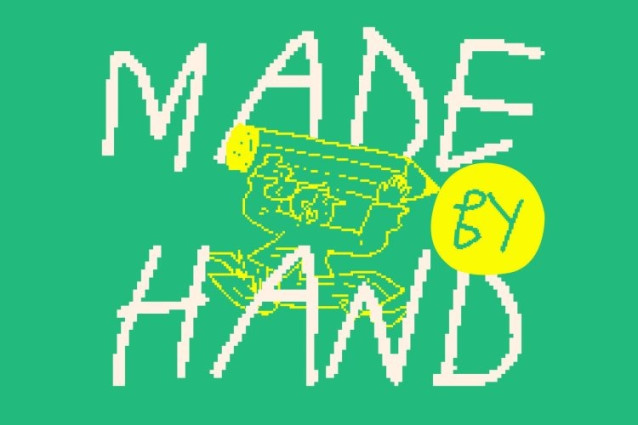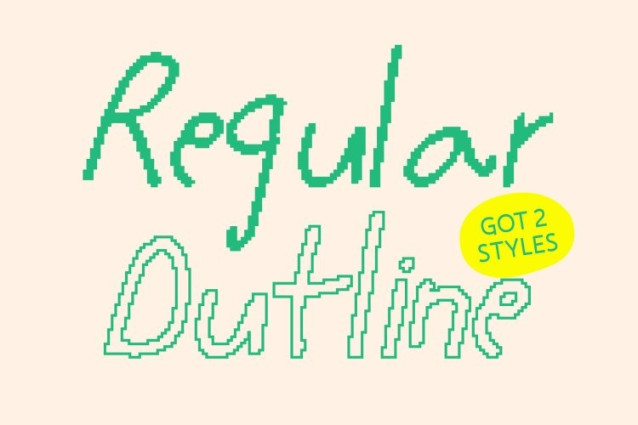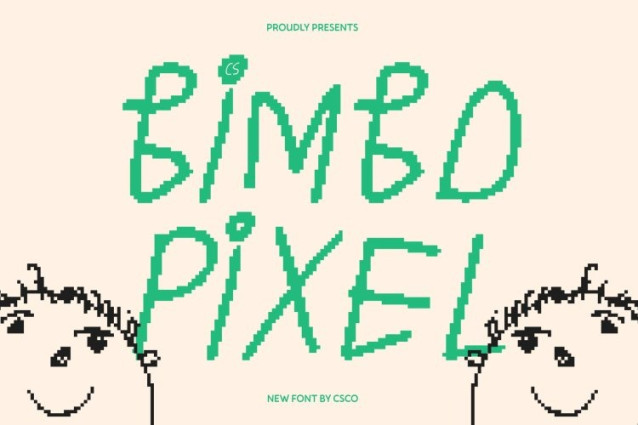
CS Bimbo Pixel Font This is a gritty yet stylish display font that celebrates imperfection as its core identity. Designed with irregular, scribbled forms and playful pixel details, this font transforms visual chaos into a bold creative statement. Its unconventional structure brings spontaneity and freedom, making every composition feel alive and expressive.
Raw Handcrafted Energy with Digital Texture
Each character reflects the feel of hand-drawn strokes combined with rough pixel edges, creating a raw and unpolished charm. The uneven lines and textured forms give the font an authentic, handcrafted energy that feels fun and rebellious. This organic irregularity adds depth and personality, perfect for designs that embrace creativity without rules.
Quirky, Expressive, and Full of Attitude
With its playful inconsistency and bold presence, this font is ideal for designs that want to feel energetic, youthful, and original. The imperfect beauty of its letterforms adds warmth and attitude, helping designs stand out while delivering a strong sense of character across both digital and print media.
Perfect for Fun, Experimental, and Creative Projects
This font shines in children’s designs, quirky branding, playful posters, illustrations, zines, and creative social media visuals. Its carefree and expressive vibe makes it a great choice for designers looking to capture imagination, spontaneity, and artistic flair in a unique pixel-inspired style.